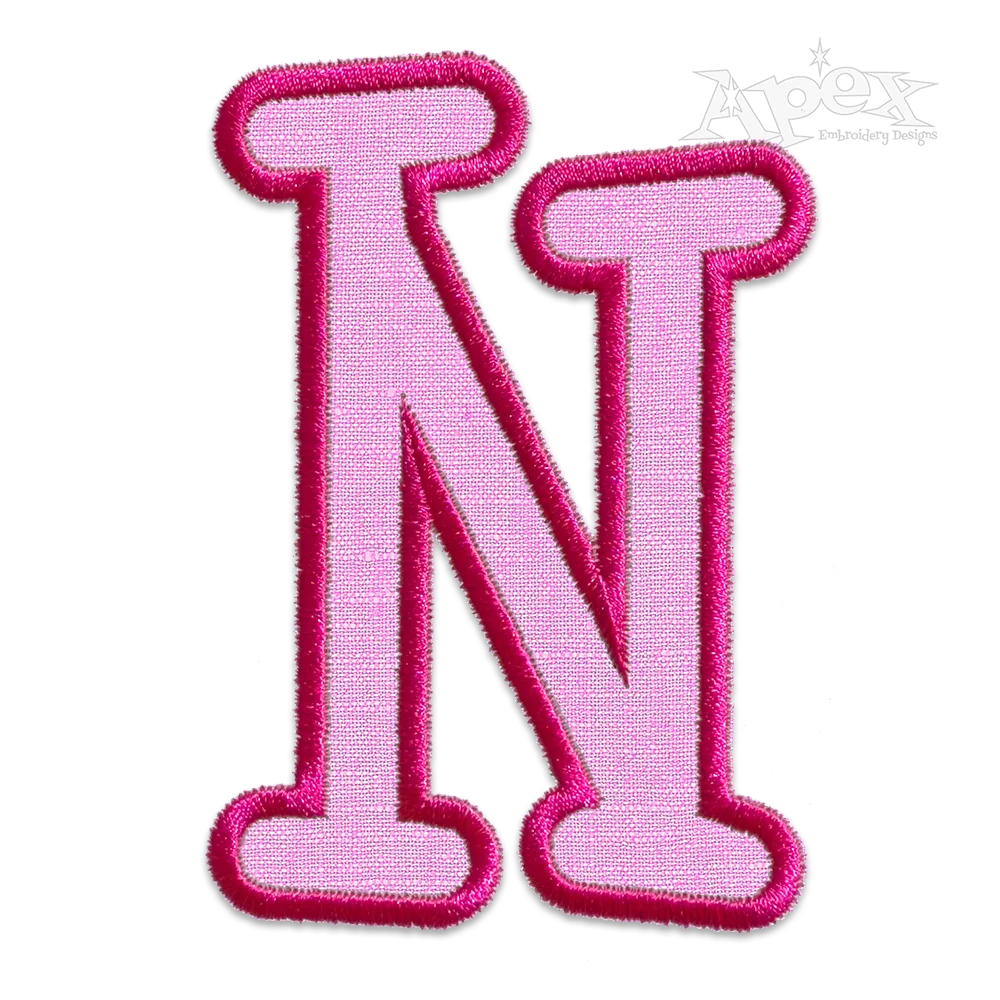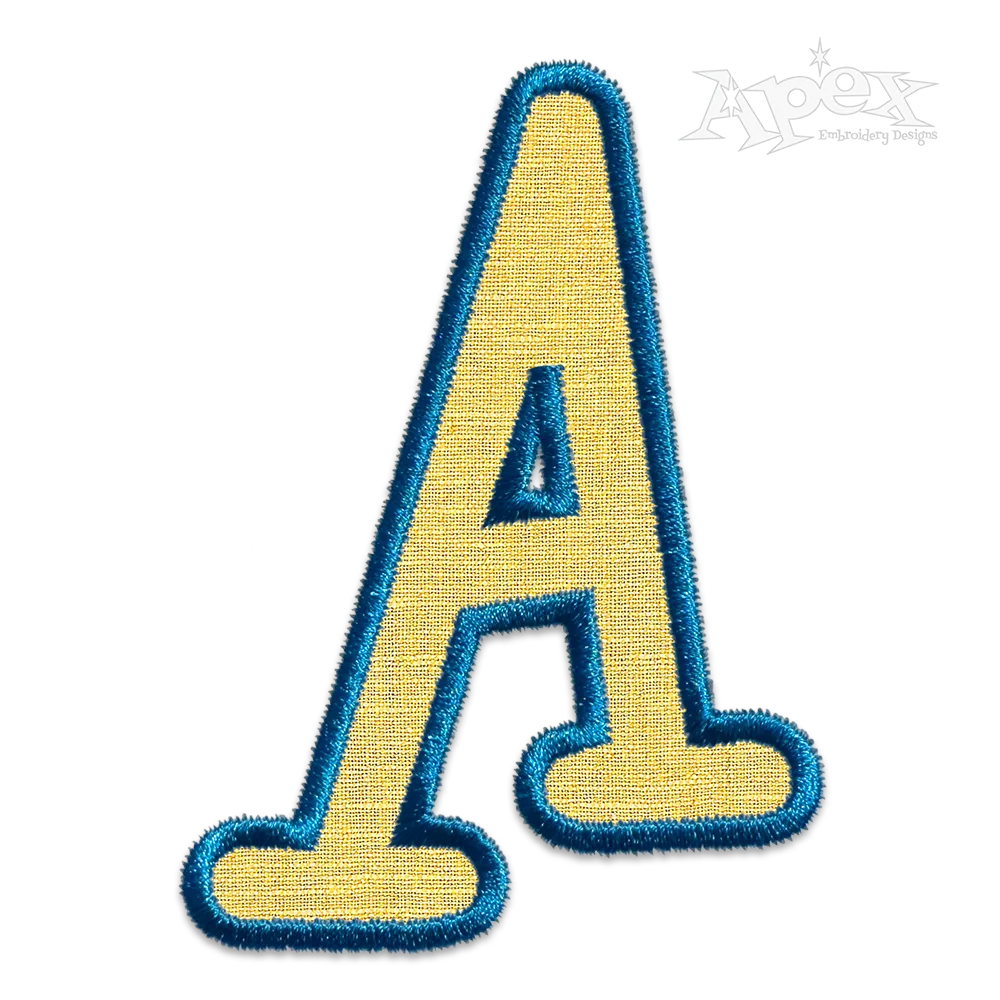
Applique Embroidery Font Boys-R-Gross
Born from the untamed nostalgia of backyard treehouses, playful rivalries, and boundless childhood energy, the Boys-R-Gross applique embroidery font captures carefree, spirited personality in every stitch. We digitized this alphabet to celebrate the quirky, vibrant essence of youth, marrying wide, joyful letterforms with generous applique fabric windows that showcase your favorite novelty prints, gingham, or textured twill. Whether bringing a cheeky statement to life on a toddler?s denim jacket or crafting custom bedroom decor for an energetic little adventurer, its punchy, rounded silhouette brings an effortless smile to the hoop, uniting master-level digitizing precision with handcrafted, storytelling charm.
Each individual letter file has been engineered with dedicated placement outlines, material tack-down stitch tracks, and high-density satin border cover stitches, ensuring flawless sew-outs on both single-needle and multi-needle embroidery machines.
Boys-R-Gross Craft & Letterform Details
Digitizing a font with this much attitude requires more than simply scaling up lines; it demands an artisan approach to stitch movement and fabric control. The letterforms feature plump, exaggerated curves, generous counter-spaces, and slightly irregular organic widths that evoke hand-drawn comic illustrations. We sculpted the satin borders with generous density and dialed-in corner overlaps to ensure raw fabric edges remain cleanly bound wash after wash.
The underlying stitch sequence has been calibrated to minimize fabric shifting: a crisp position line traces the initial boundary, followed by a double-pass tack-down that anchors your applique textile securely before the lush, lustrous satin capping begins. The result is a smooth, bump-free finish that flatters everything from smooth woven broadcloth to lofty fleece, turning everyday stitching into an expressive, heirloom-quality masterpiece.